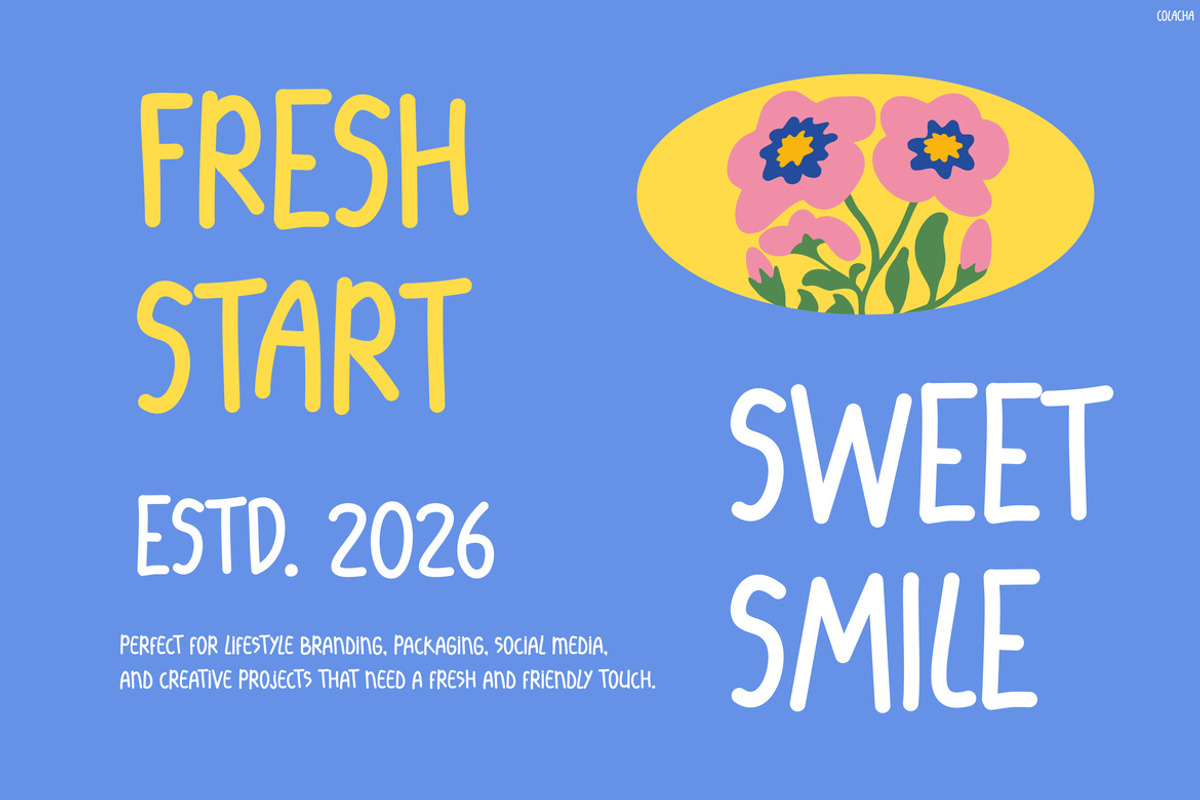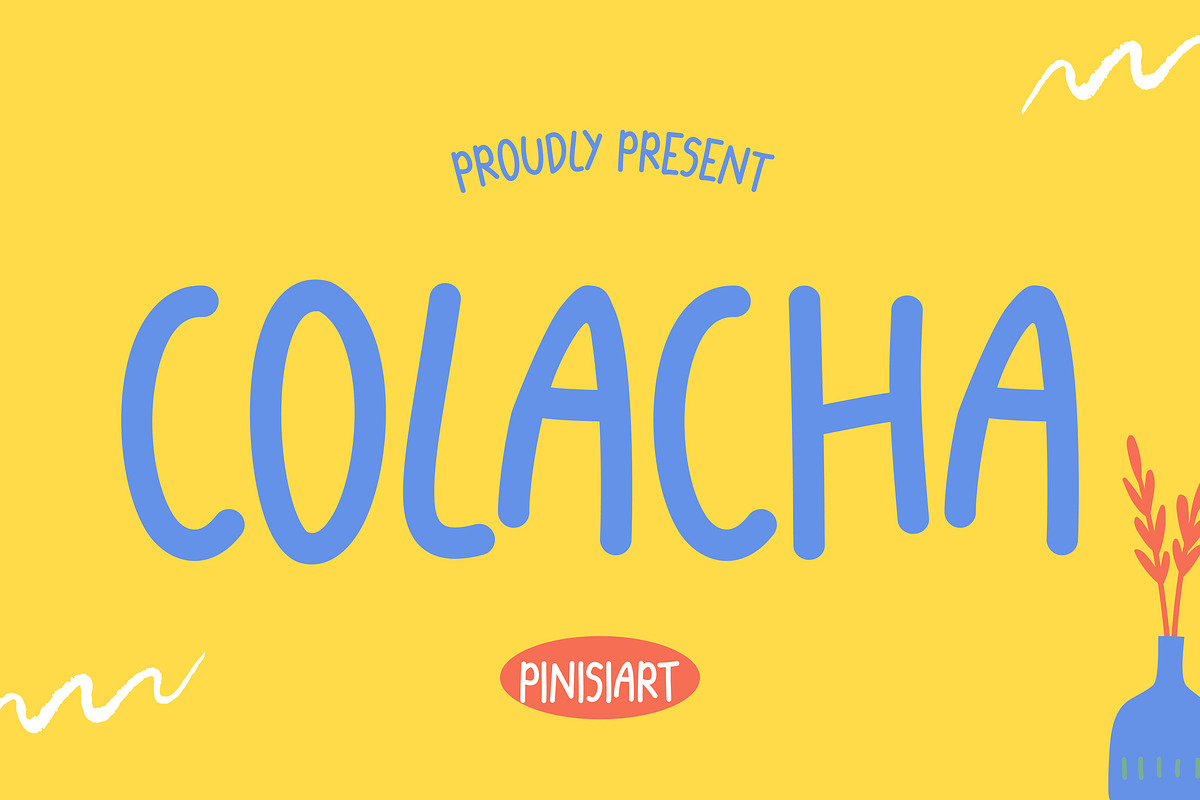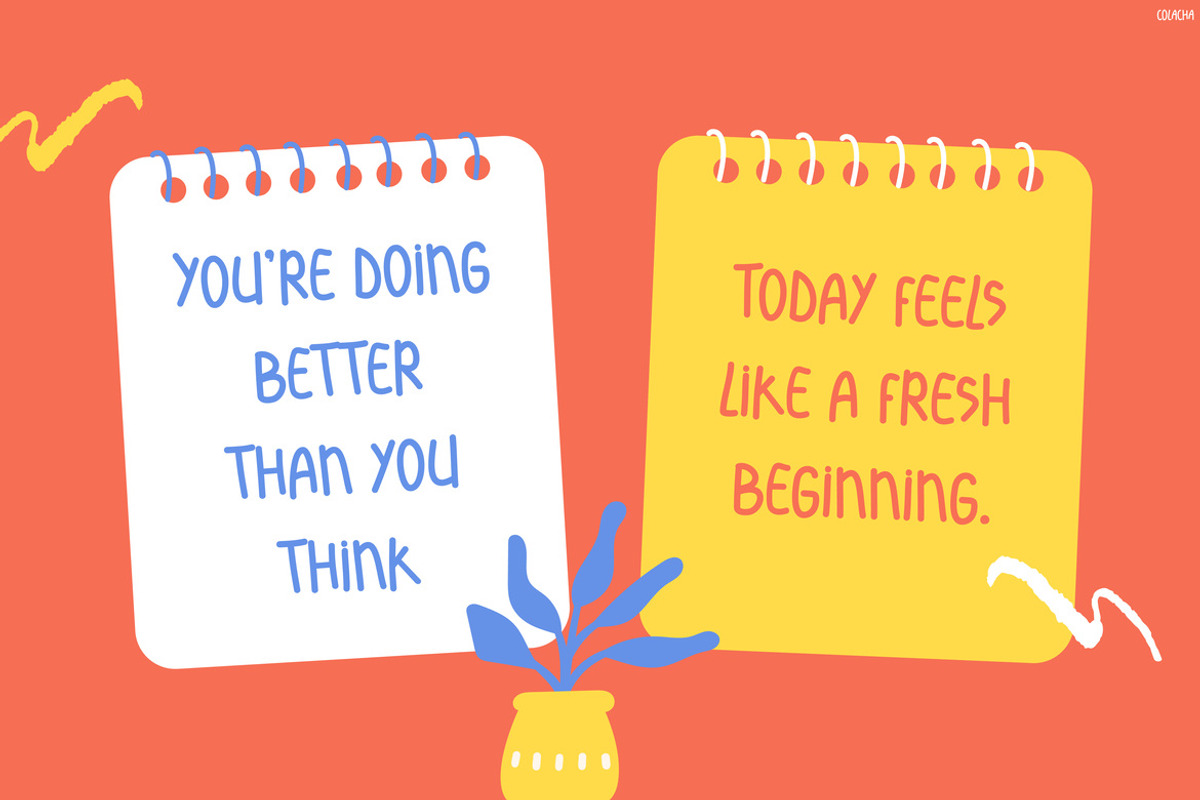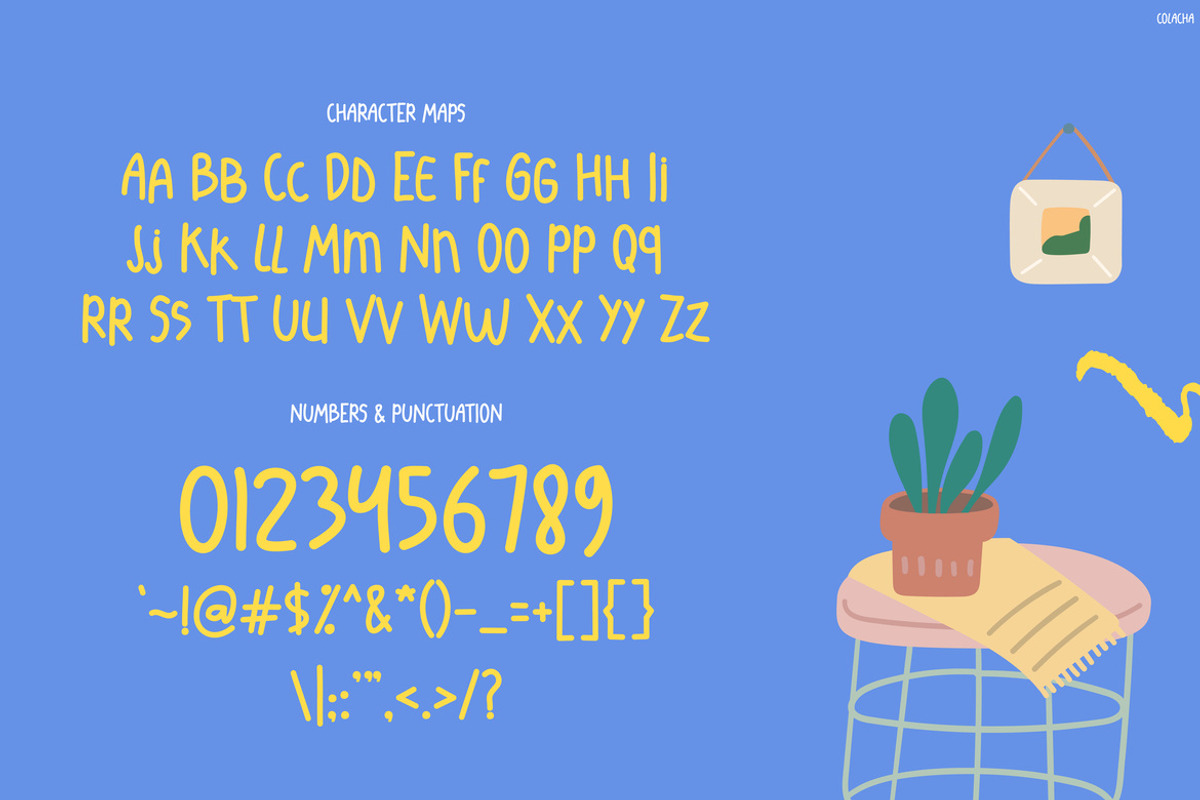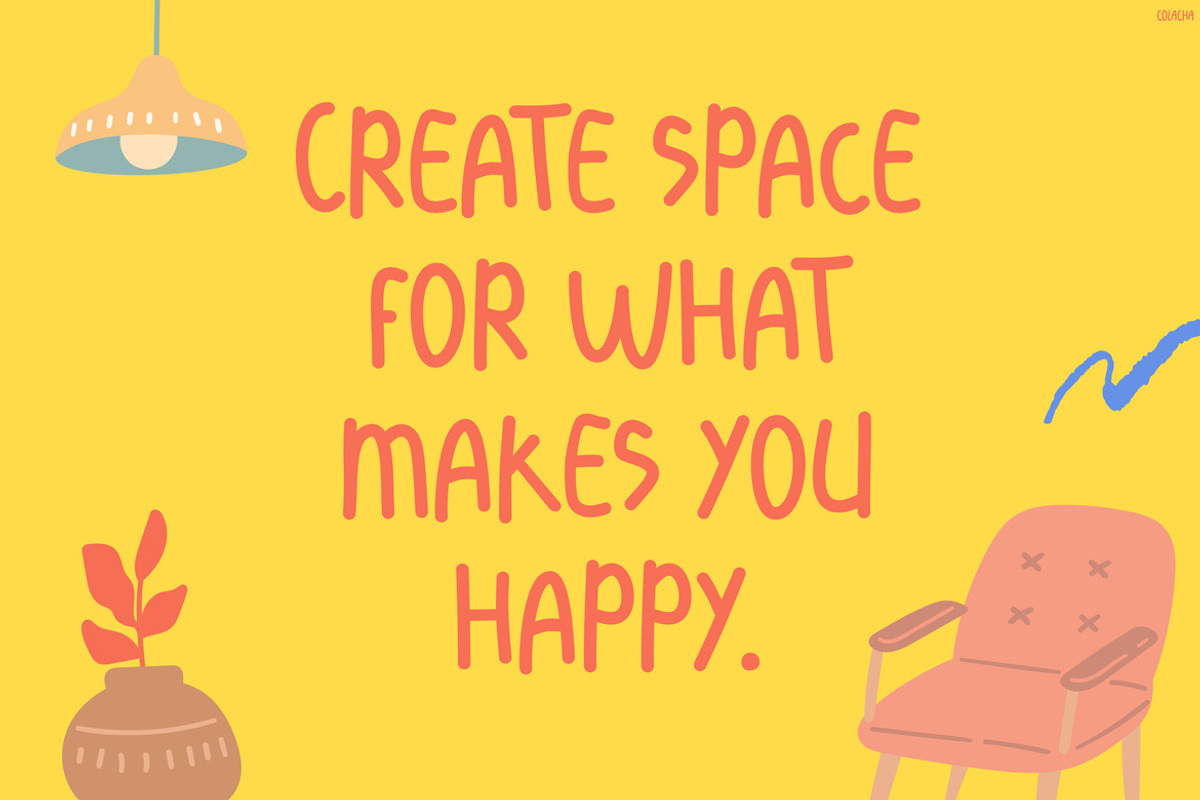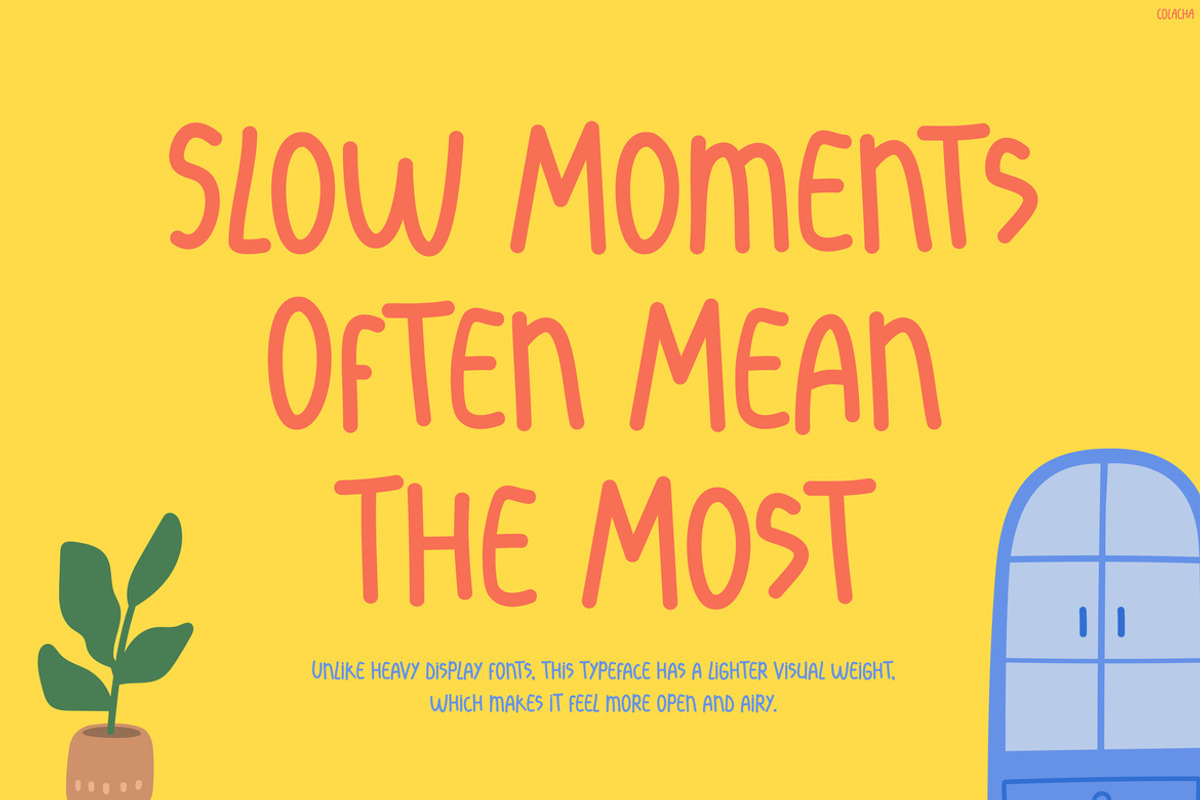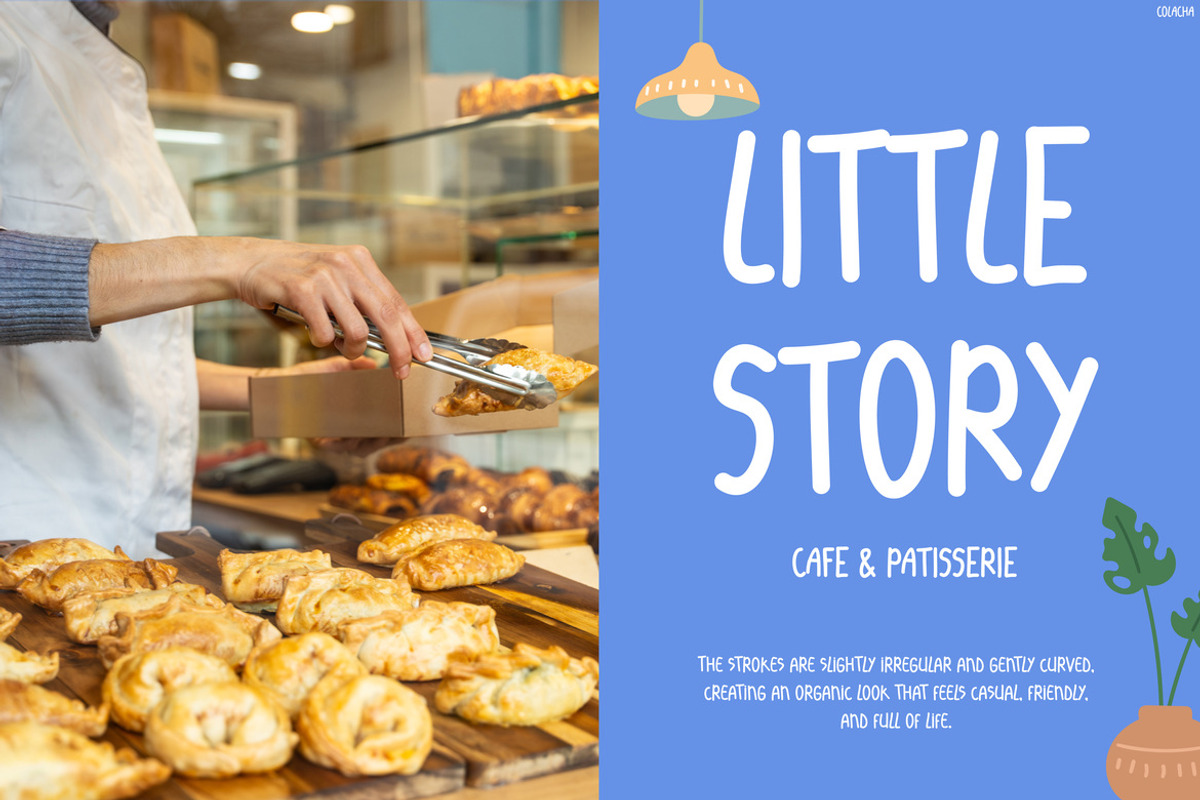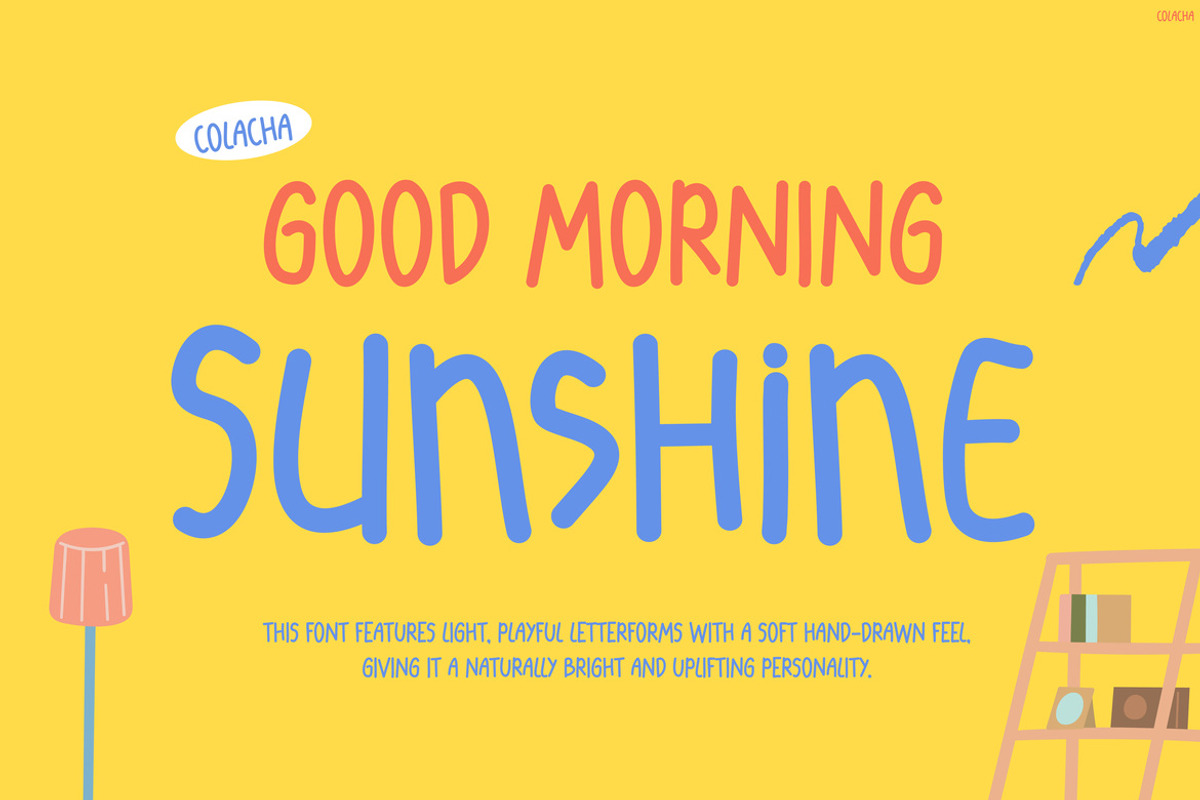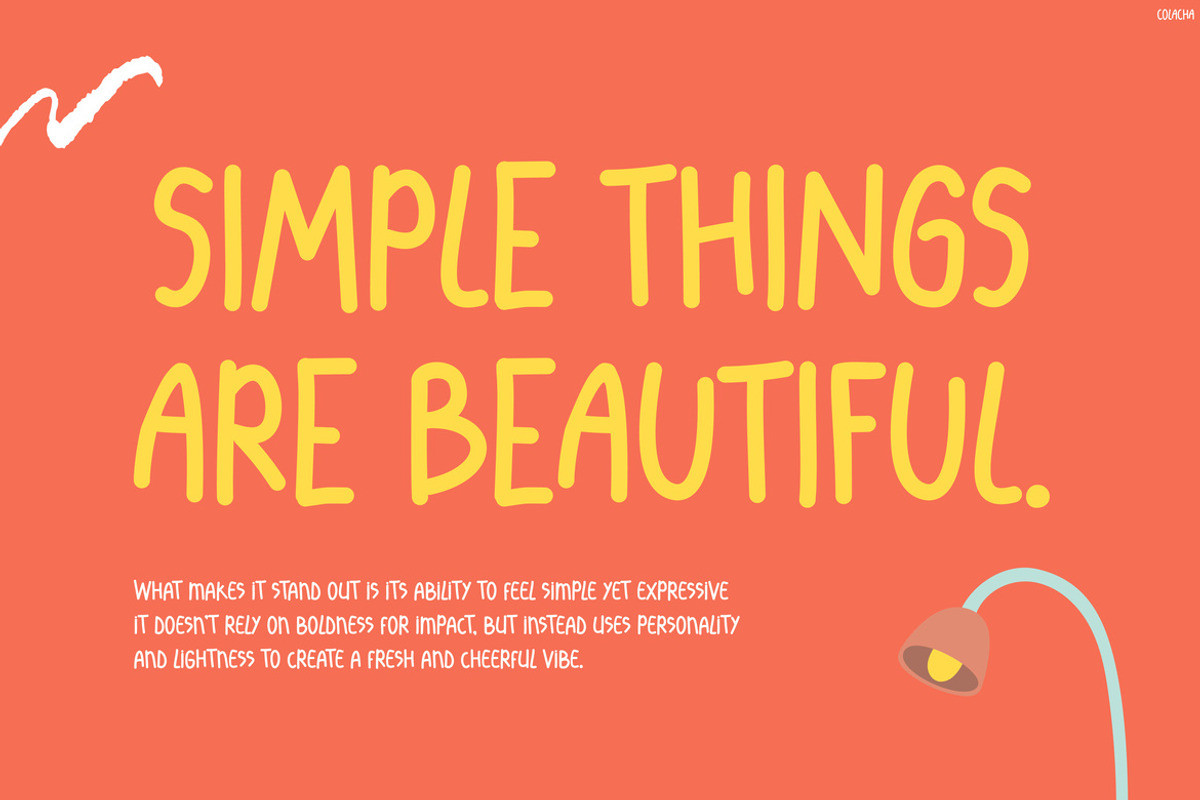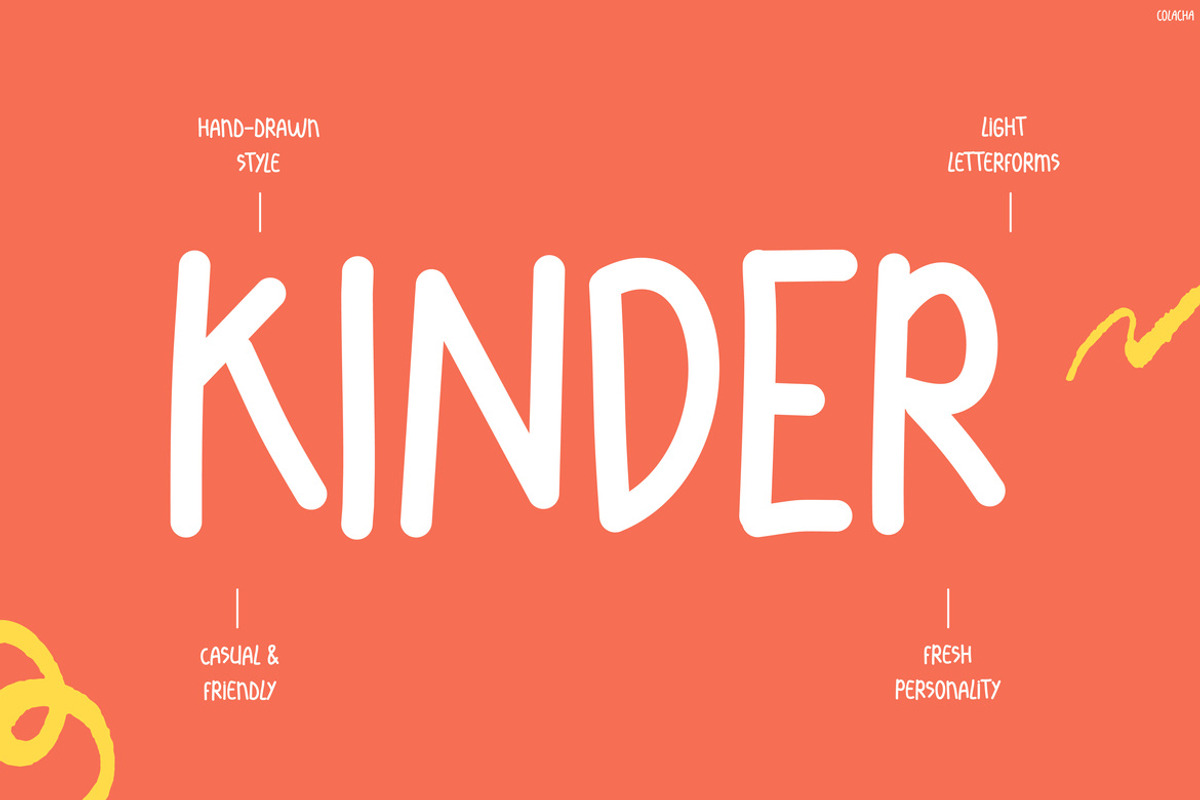
Colacha
Colacha – Elegant Playful Kids Font with Stylish Charm
Kids Font Colacha is a unique and stylish typeface that blends playful energy with elegant charm. At first glance, its soft curves and slightly decorative shapes create a warm and artistic feel. Moreover, the smooth flow of each letter adds a touch of personality, making every word look lively yet refined. Because of this balance, the font feels both fun and sophisticated at the same time. In addition, its clean structure keeps everything readable while still looking visually interesting. As a result, Kids Font Colacha stands out as a versatile font that works beautifully for creative and stylish kids designs.
Colacha is a creative display font designed to bring a soft, playful, and slightly elegant vibe into your projects. Not only does it feature smooth and expressive letterforms, but it also pairs perfectly with aesthetic visuals, warm tones, and artistic layouts. Furthermore, its gentle style makes designs feel more personal and inviting. Therefore, whether you are working on digital content or print materials, Colacha adds a charming and modern touch. Ultimately, it transforms simple text into visually appealing designs that feel both fun and classy.